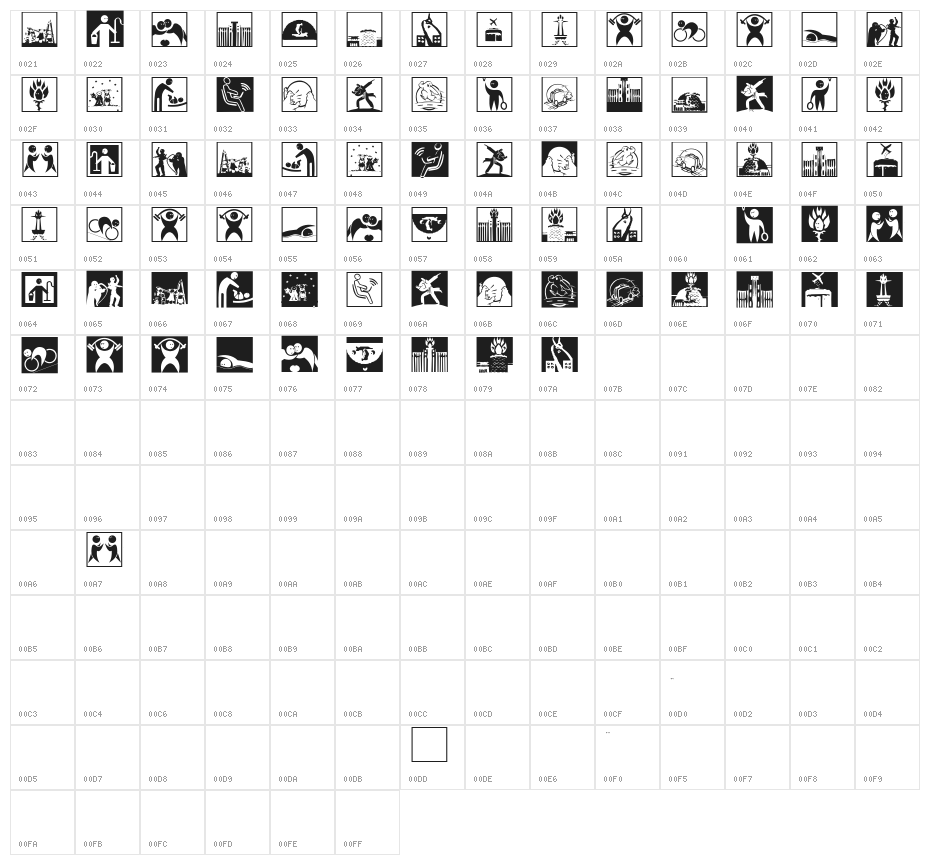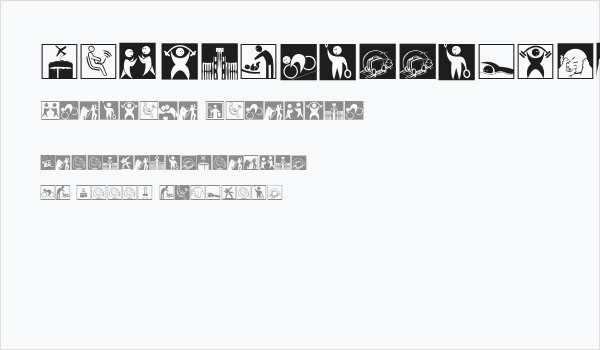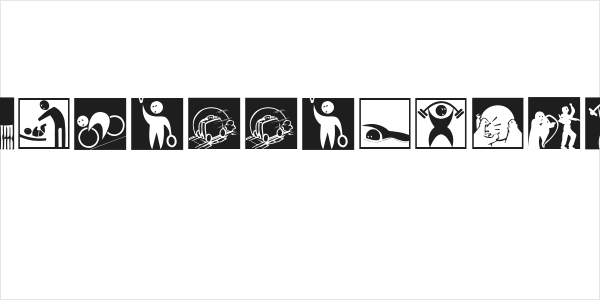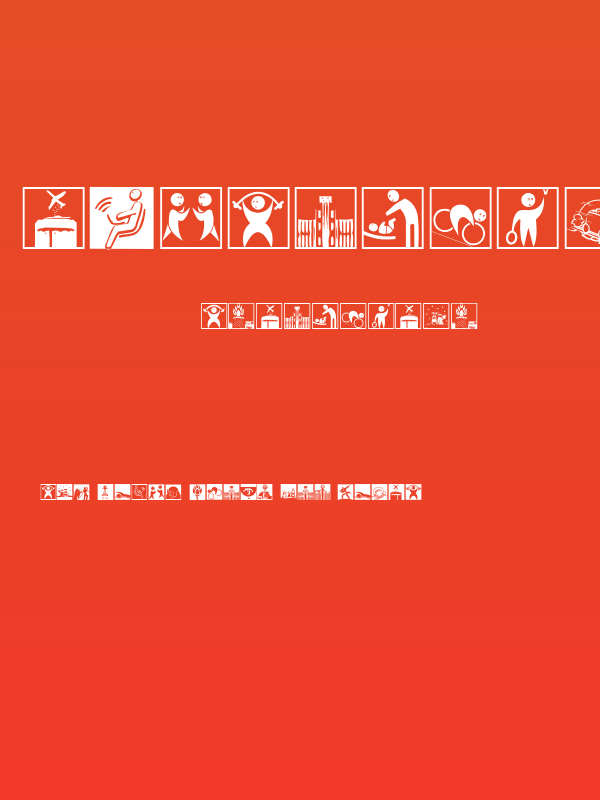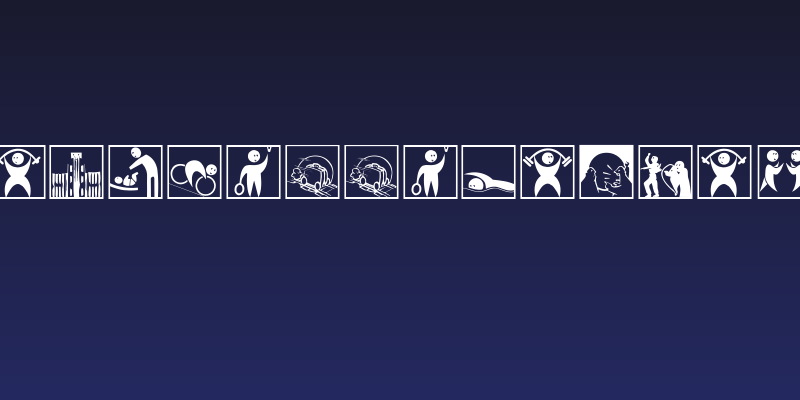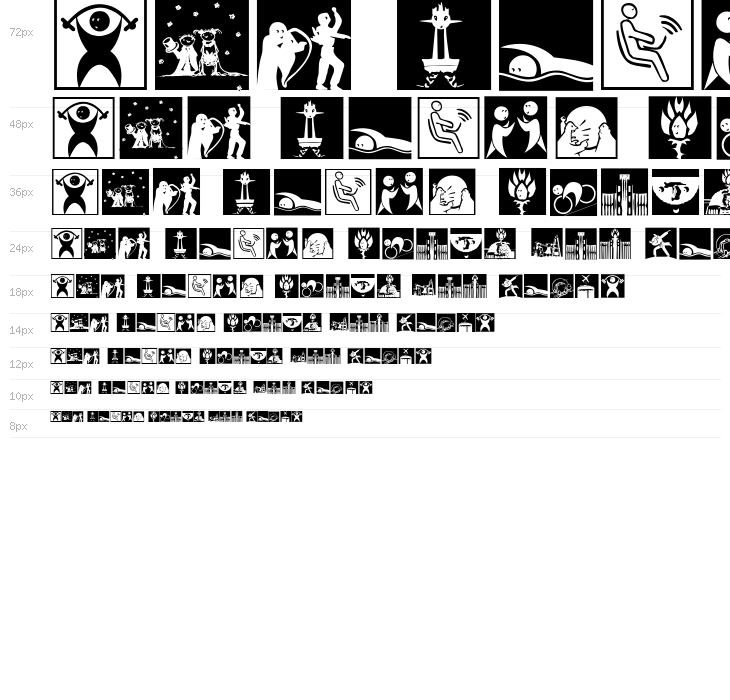
PictoGramma-Sketches Font
PictoGramma-Sketches Description
A decorative pictogram font featuring hand-drawn, sketch-style icons within square frames, depicting abstract human figures, buildings, and symbolic objects in high-contrast black and white. Each character is a unique illustration rather than a traditional letterform.
| Overall Style | Decorative, Sketch, Hand-drawn |
| Use Case | Icons, Visual communication, Thematic illustrations |
| Proposed Projects | Infographics, educational materials, signage, creative posters, visual storytelling, childrenΓ’β¬β’s books. |